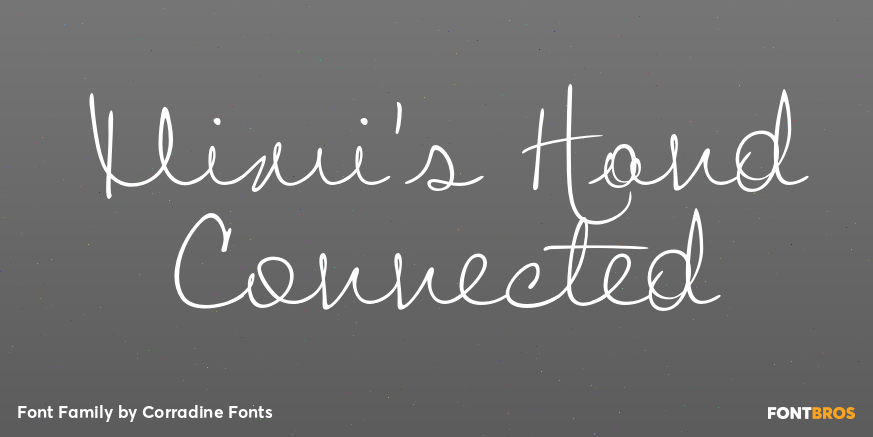
HomeFont BrosHandwrittenMimi's Hand Connected HandwrittenScripts: Casual Mimi\’s Hand Connected FacebookXPinterestWhatsApp 1 of 1 About Mimi\’s Hand Connected Based in Maria Consuelo Roman\’s handwriting, Mimi\’s Hand Connected is a very spontaneous font. It could be used in any informal project.  DOWNLOAD NOW People also explored Meata Oo Font Lusta A Brush Action Font Bewitched Font Blossom Font Velile Font Woyo Font Relina Monogram Font Risoles Font 346 0 TagsMimi\'s Hand Connected Font Previous articleFilmotype JamboreeNext articleRough Beauty Script LEAVE A REPLY Cancel reply Comment: Please enter your comment! Name:* Please enter your name here Email:* You have entered an incorrect email address! Please enter your email address here Website: Save my name, email, and website in this browser for the next time I comment. Personal Use Free Astagina Signature Personal Use Free Read more about this font Lumber Personal Use Free Read more about this font Manbow Personal Use Free Read more about this font My Shine Personal Use Free Read more about this font BLOG Using Fonts in Digital Marketing: Tips to Strengthen Your Brand Identity In the realm of digital marketing, every visual element plays a crucial role in shaping a brand's identity, and fonts are no exception. The... Best Fonts for YouTube Videos: Make Your Thumbnails Stand Out Free Fonts Risk: Why Free Fonts Can Be Dangerous for Designers Top 10 Handwritten Fonts That Elevate Your Designs